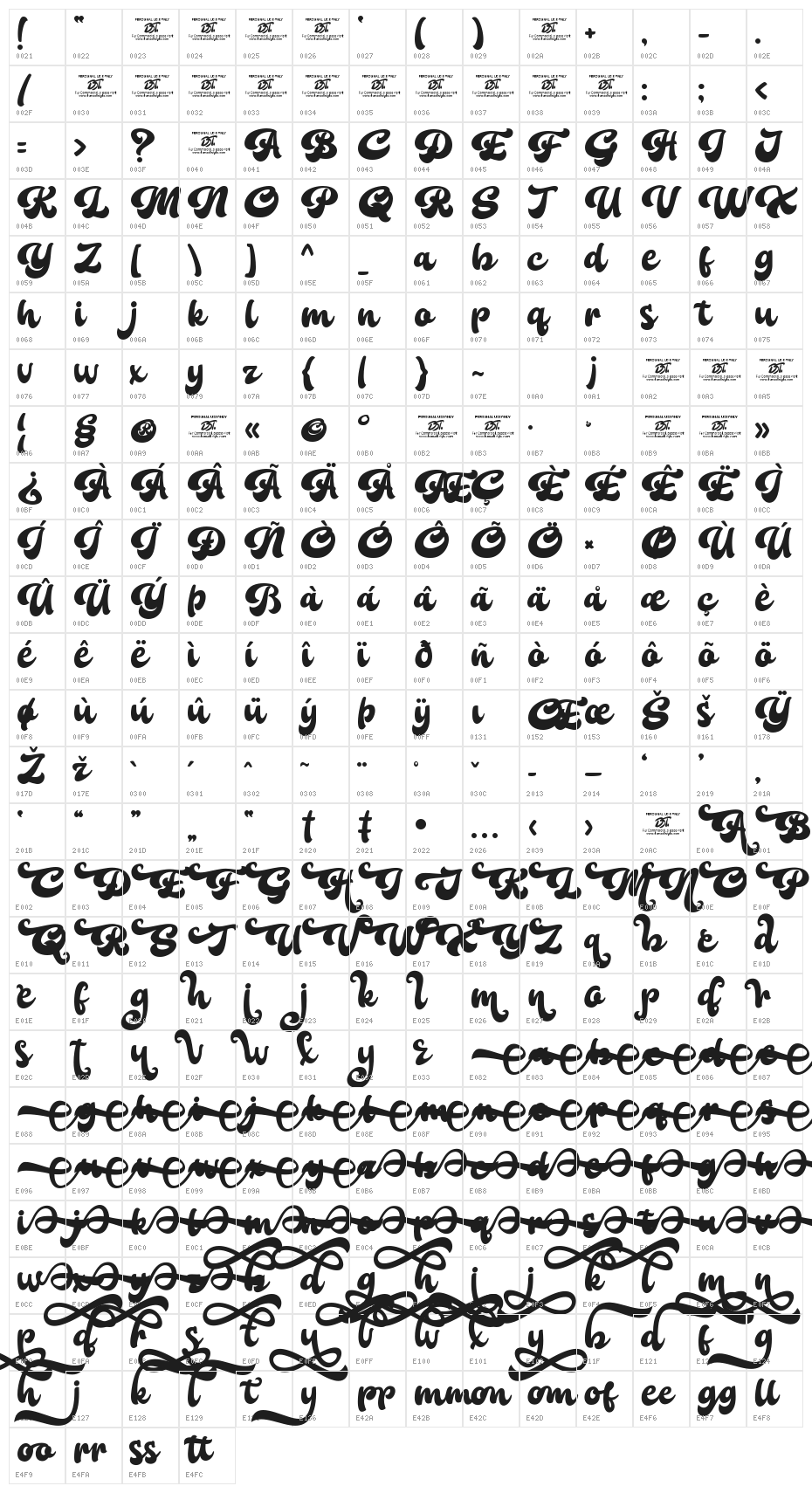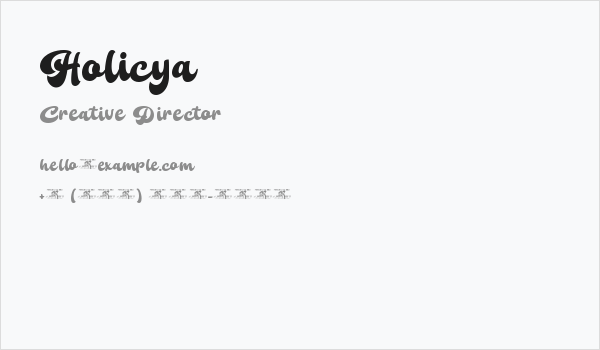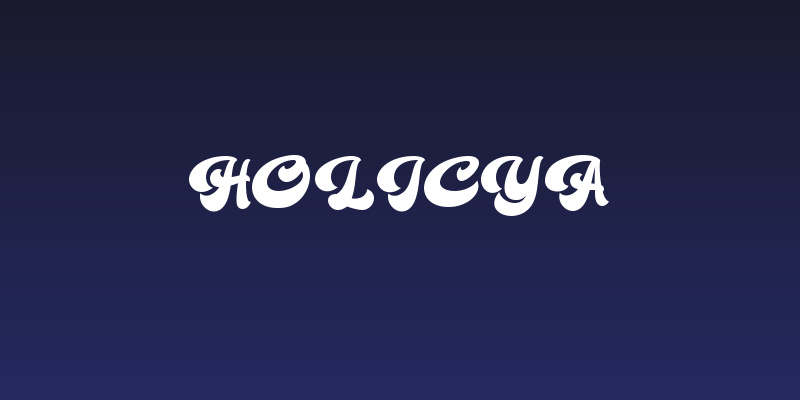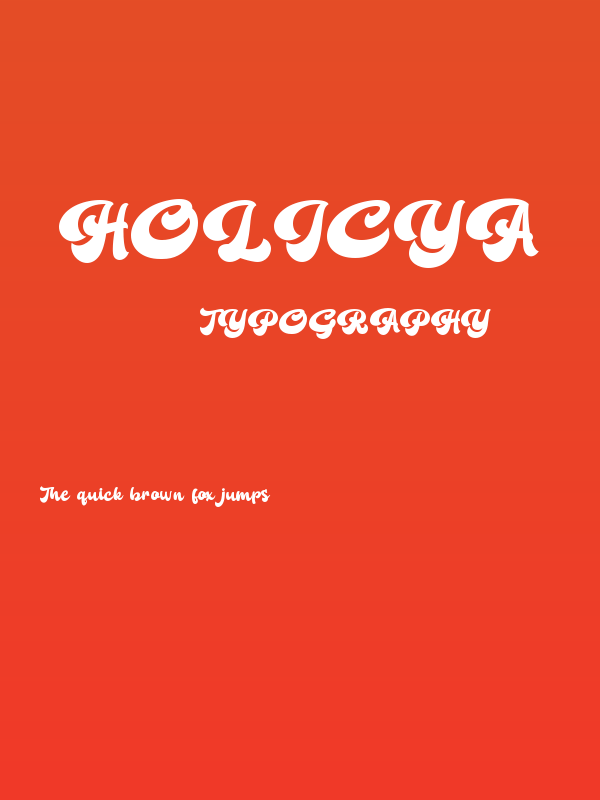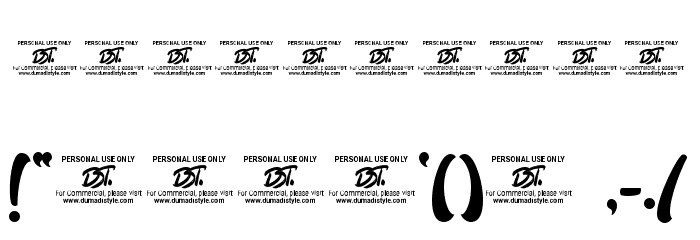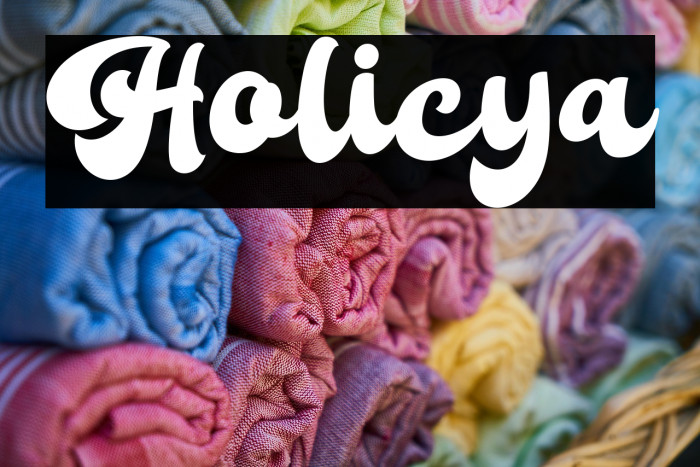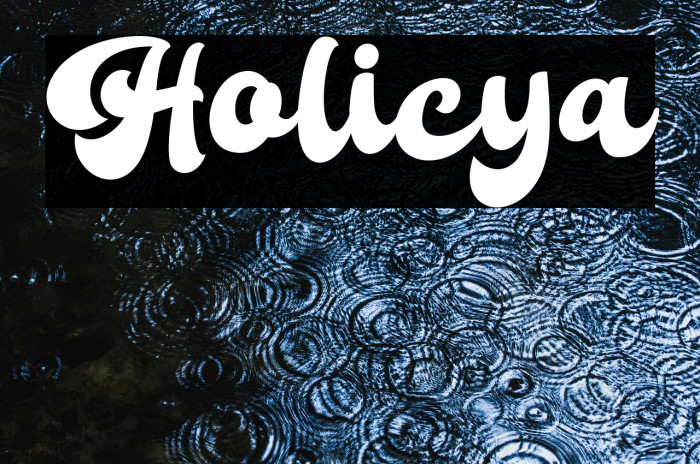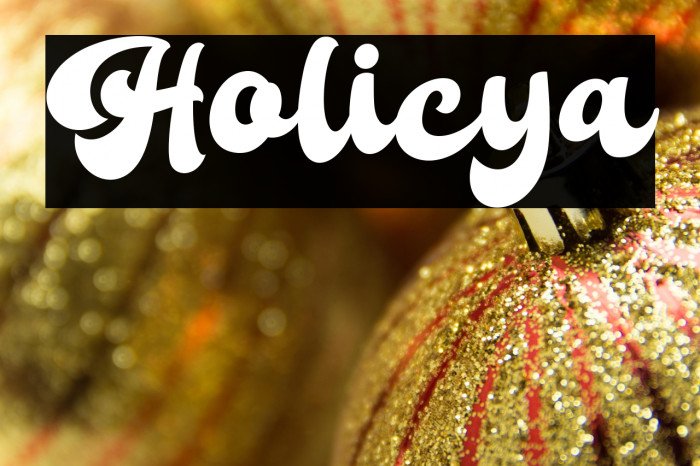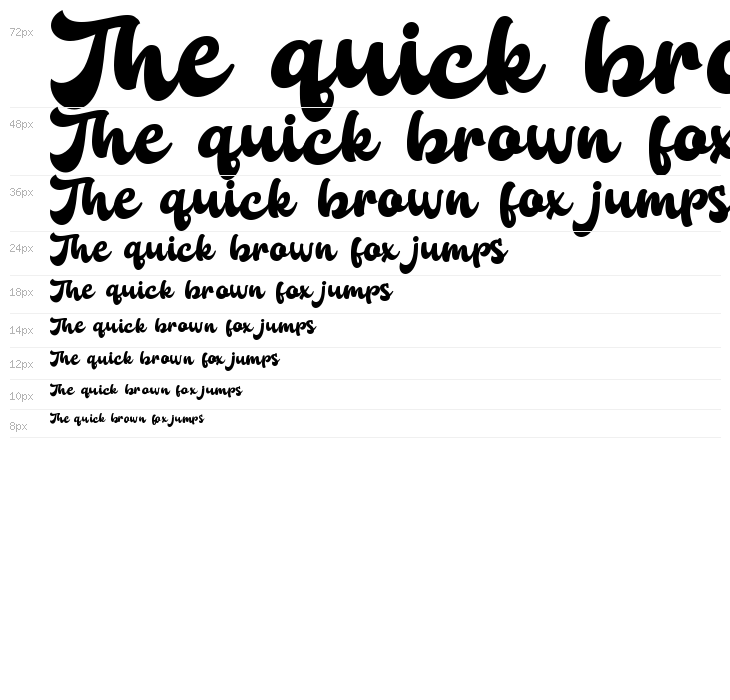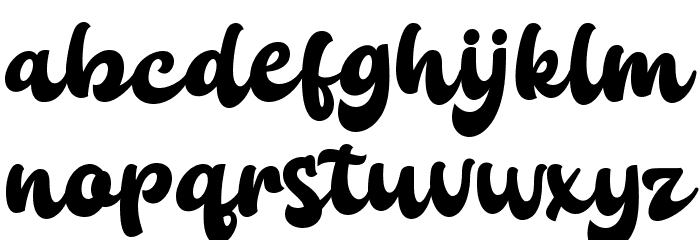
Holicya Font
Holicya Description
This font features a bold and playful script style with a flowing, cursive design. The characters are interconnected, creating a sense of movement and fluidity. The uppercase letters are ornate, with swashes and flourishes that add a decorative touch. The lowercase letters maintain a consistent style, with rounded forms and smooth curves. The numbers and special characters are designed to match the overall aesthetic, ensuring a cohesive look. This font is ideal for projects that require a touch of elegance and creativity.
| Proposed Projects | Ideal for invitations, greeting cards, logos, and branding projects that require a touch of elegance and creativity. |